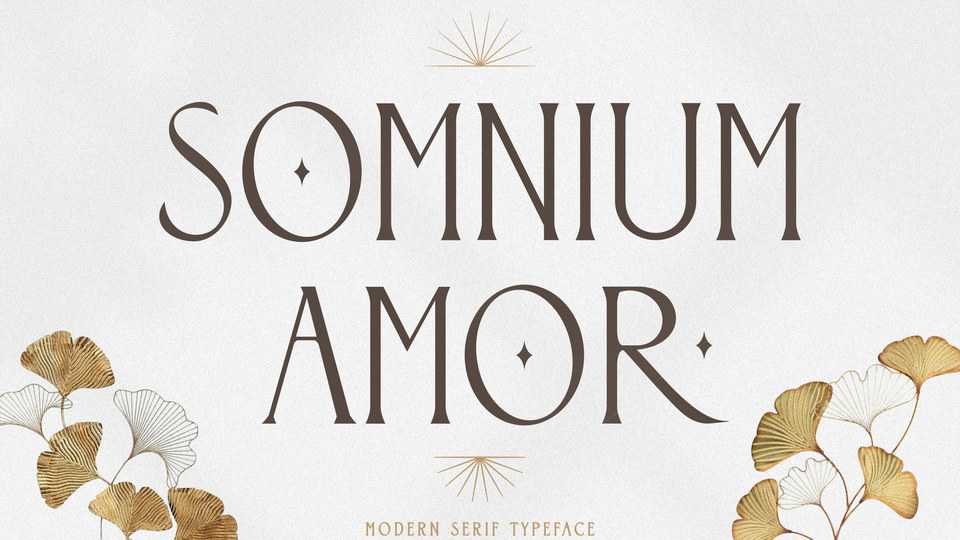
Download Somnium Amor font, an elegant vintage serif typeface with decorative elements. Somnium Amor is the perfect choice for people looking for clean, modern, minimalist, beauty design styles.